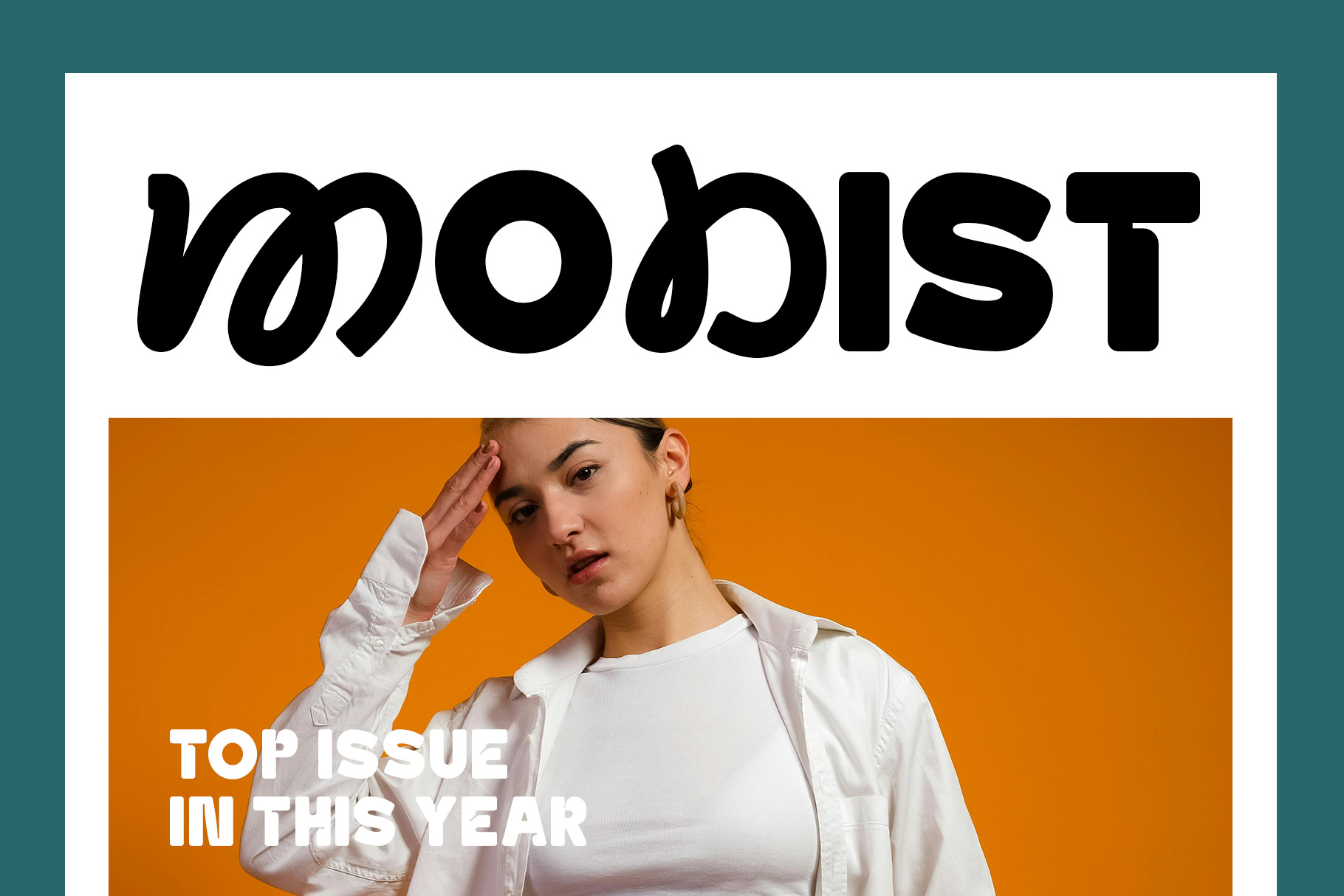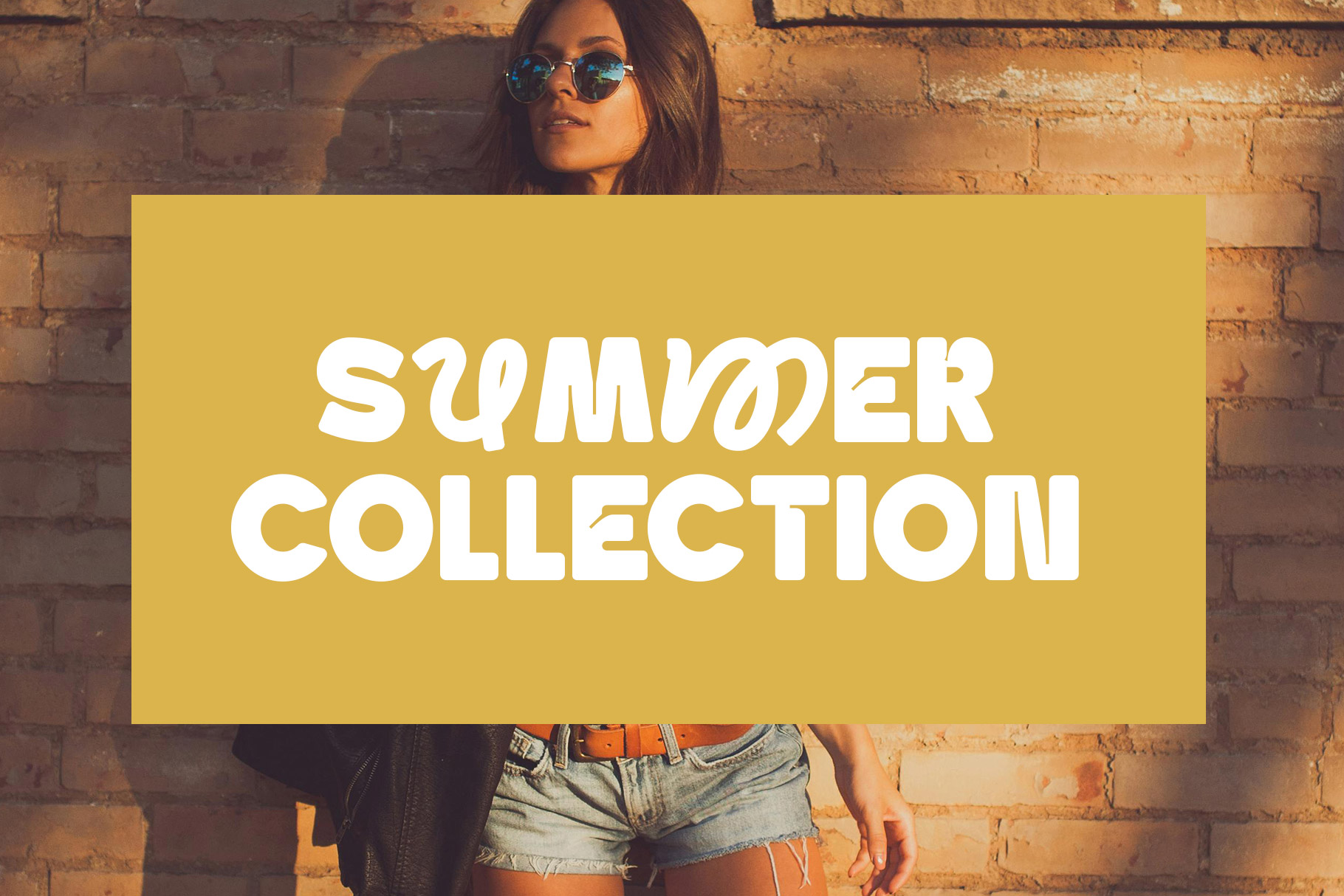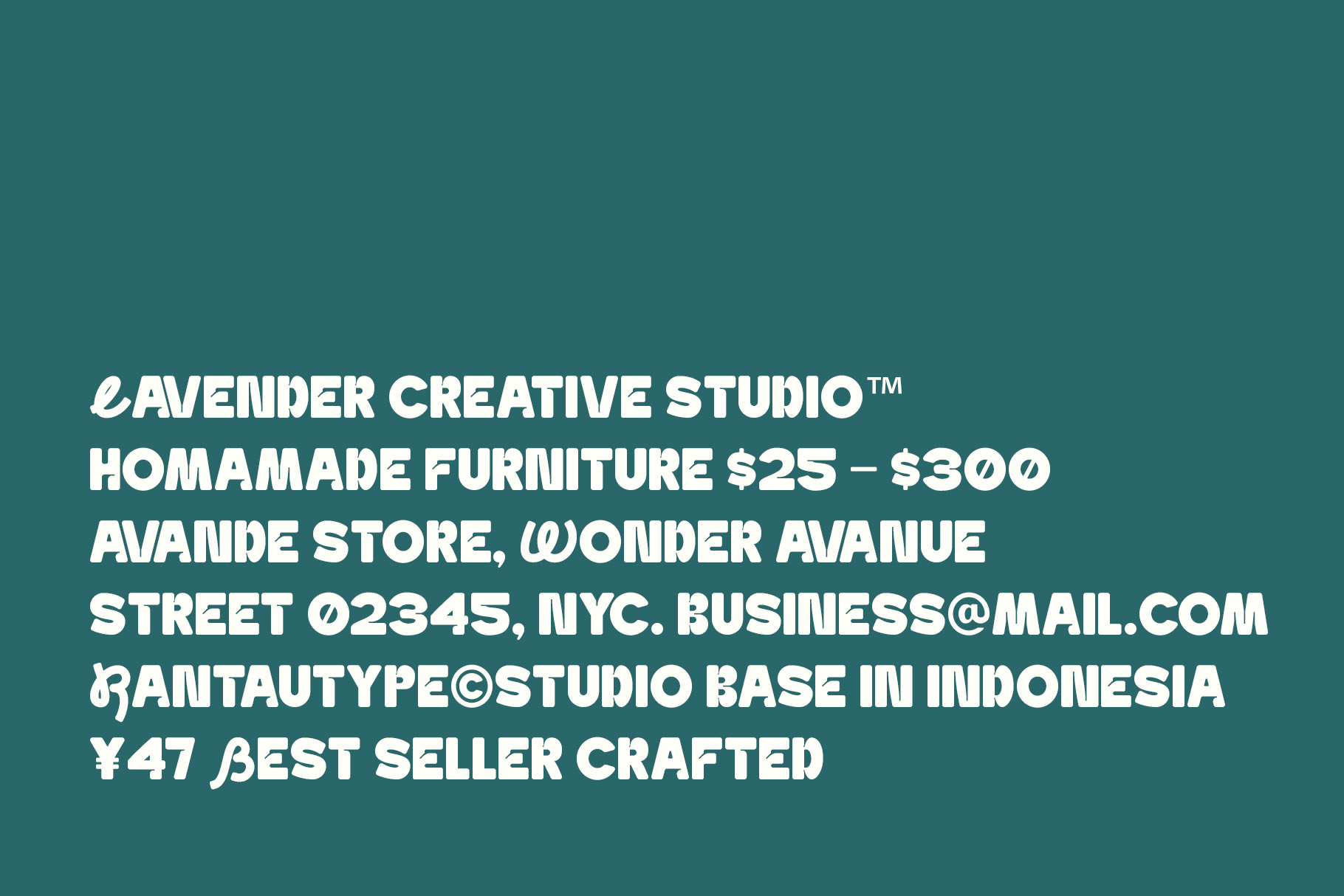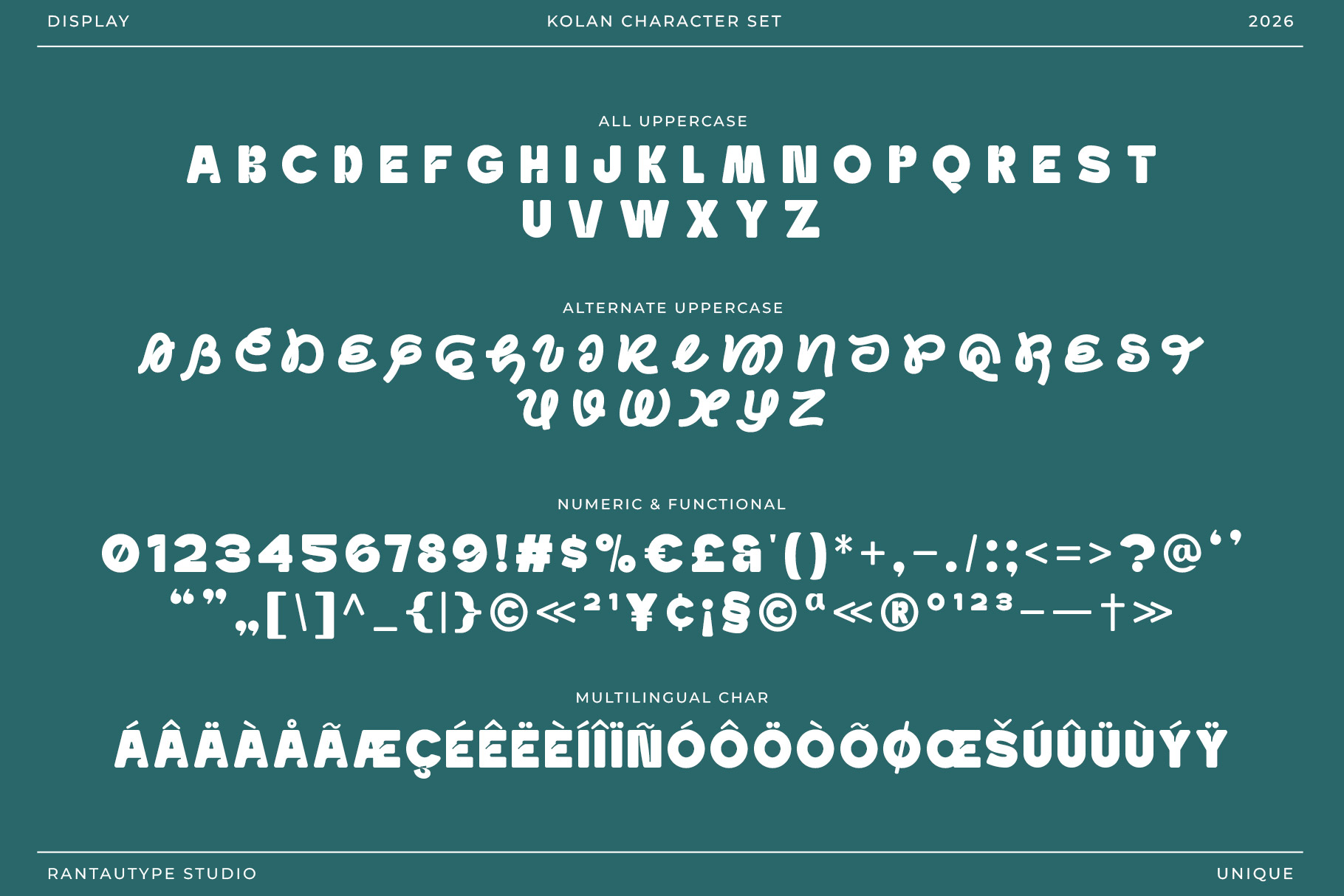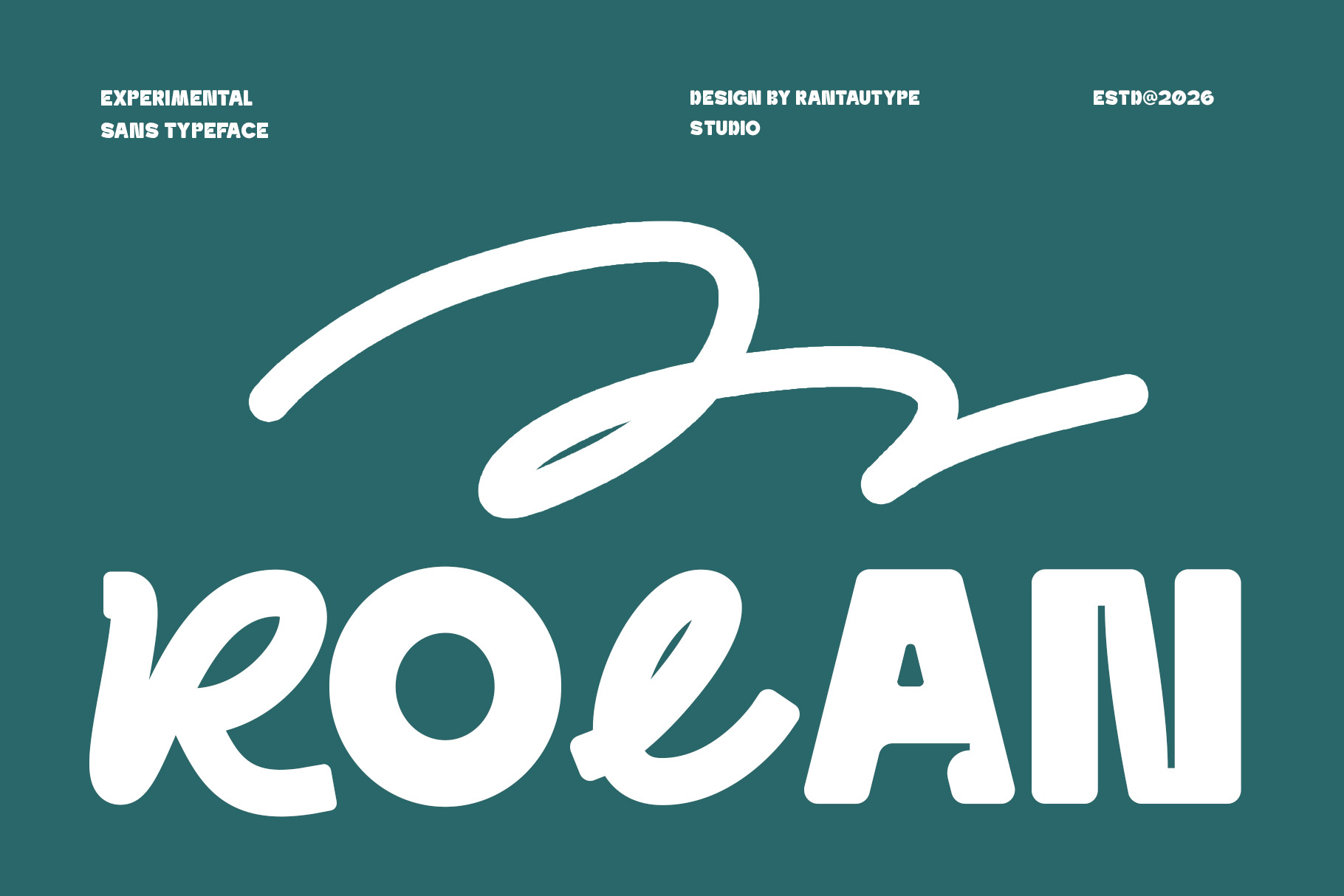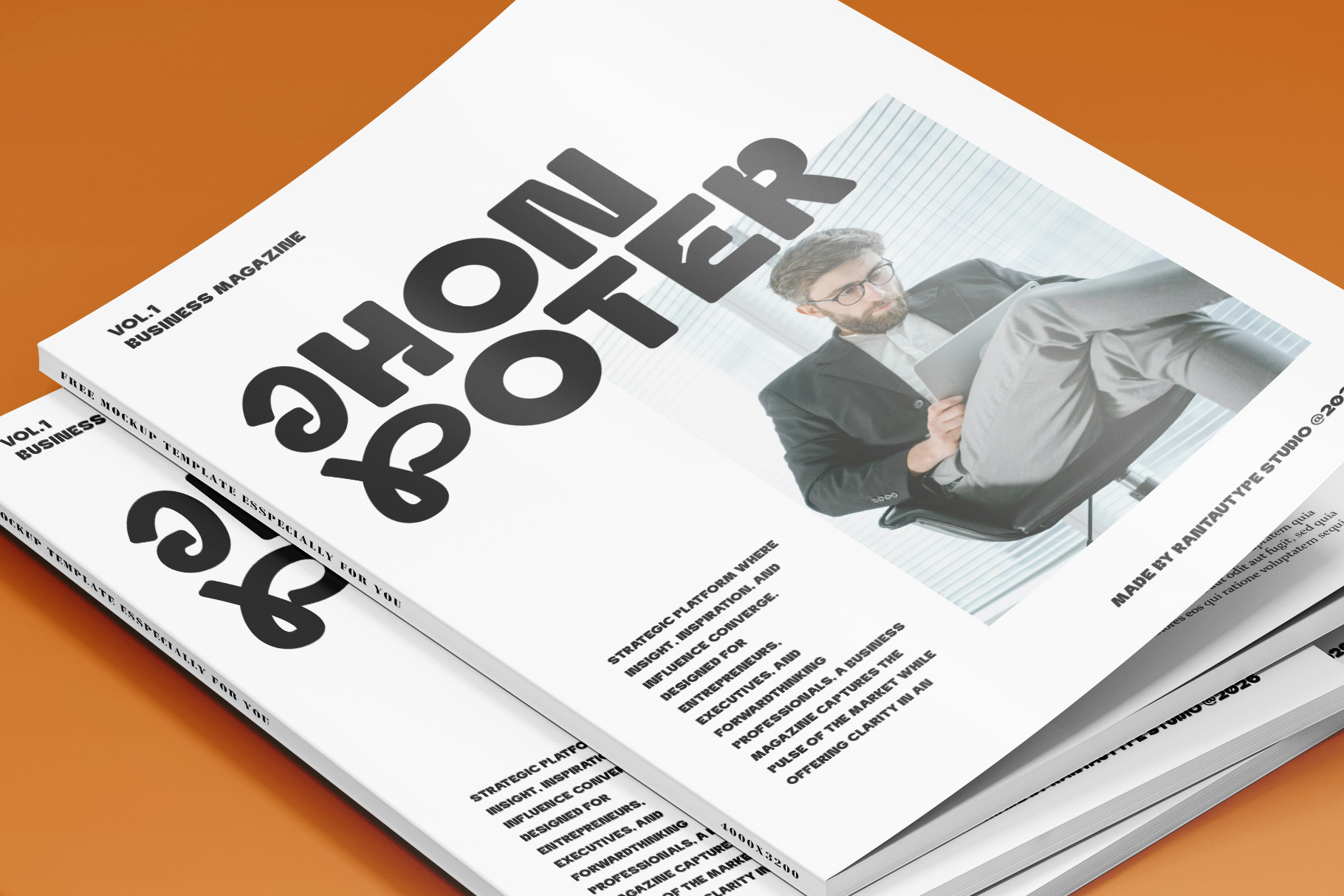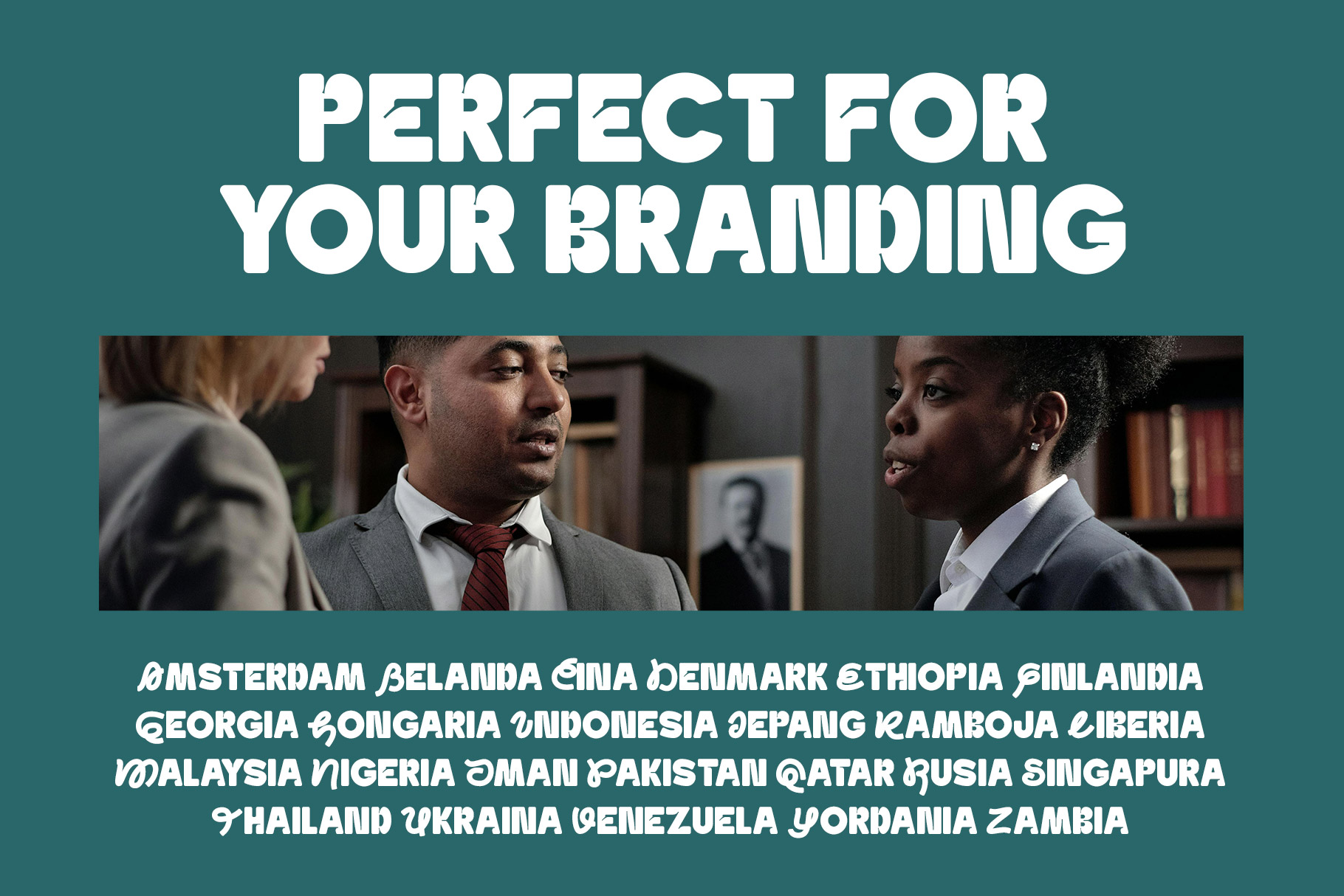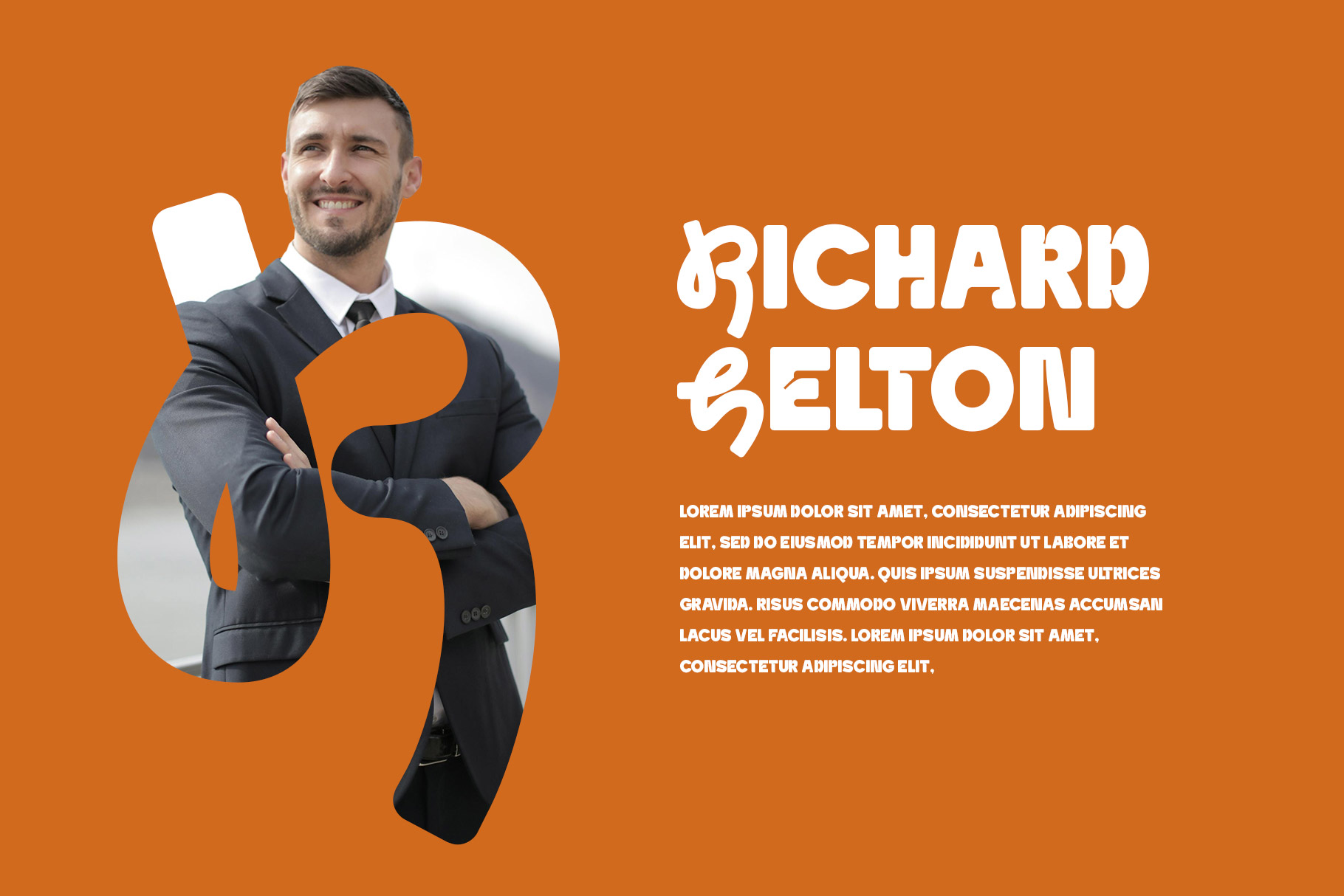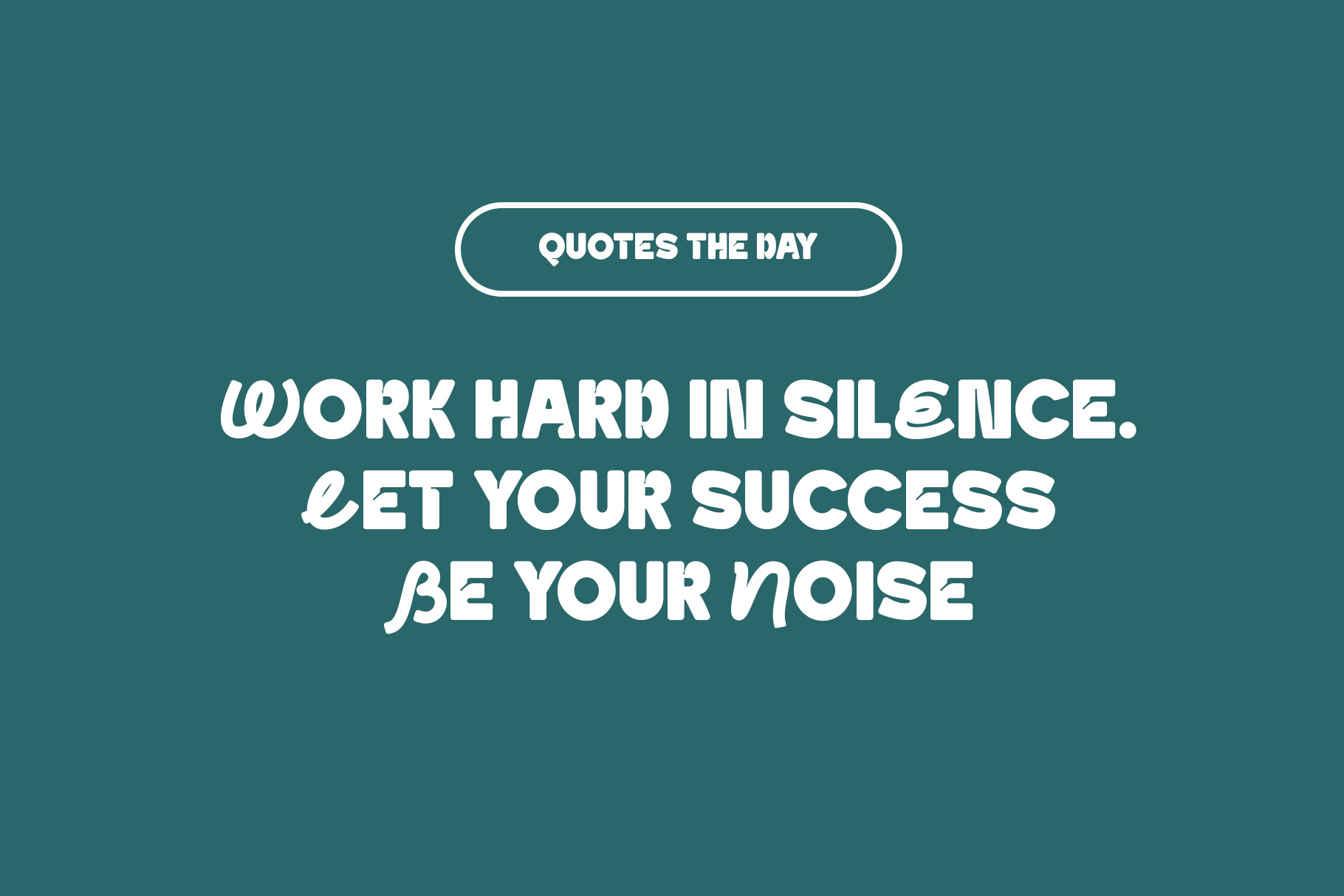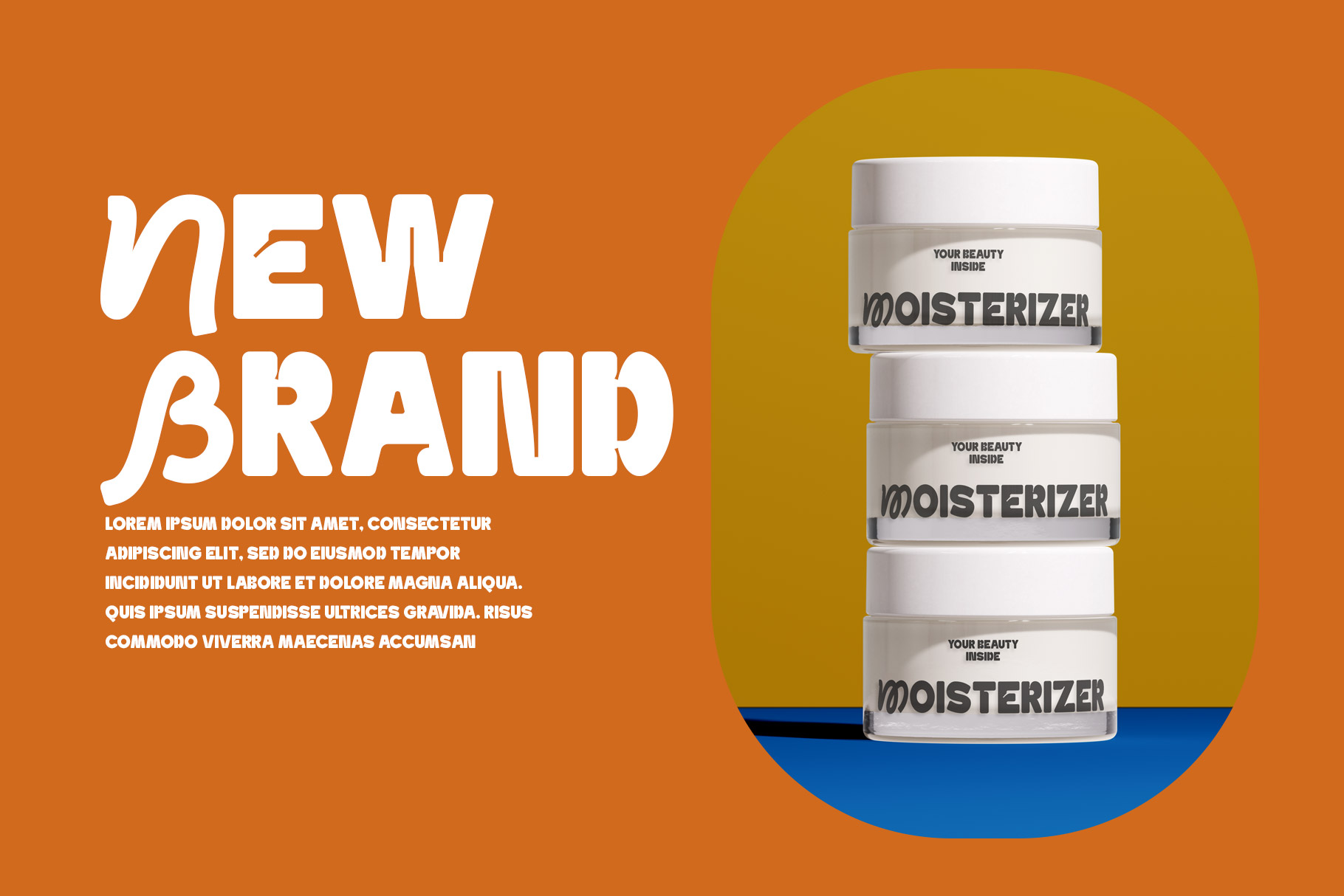
Kolan Unique Display Font
Kolan is unique display font embrace joyful with modern vibes. Kolan is a perfectly choice for any creative endeavor, creating, modern, lifestyle design such as logotype, title, cover, branding, invitations, wedding designs, display and magazine, social media posts, advertisements, printed quotes, product packaging, corporate brand, product designs, labels, photography, watermarks, special events and any other project with fun touch.